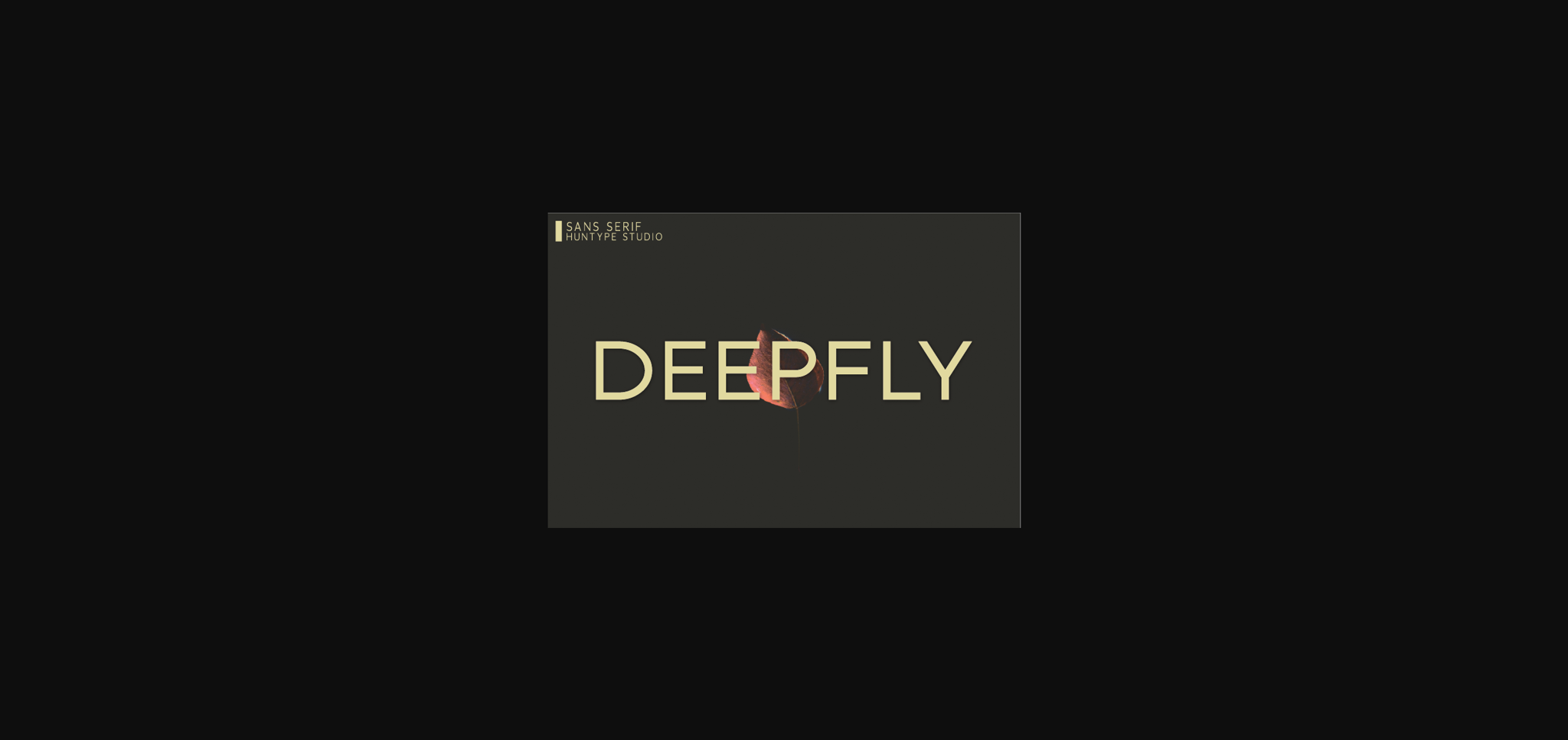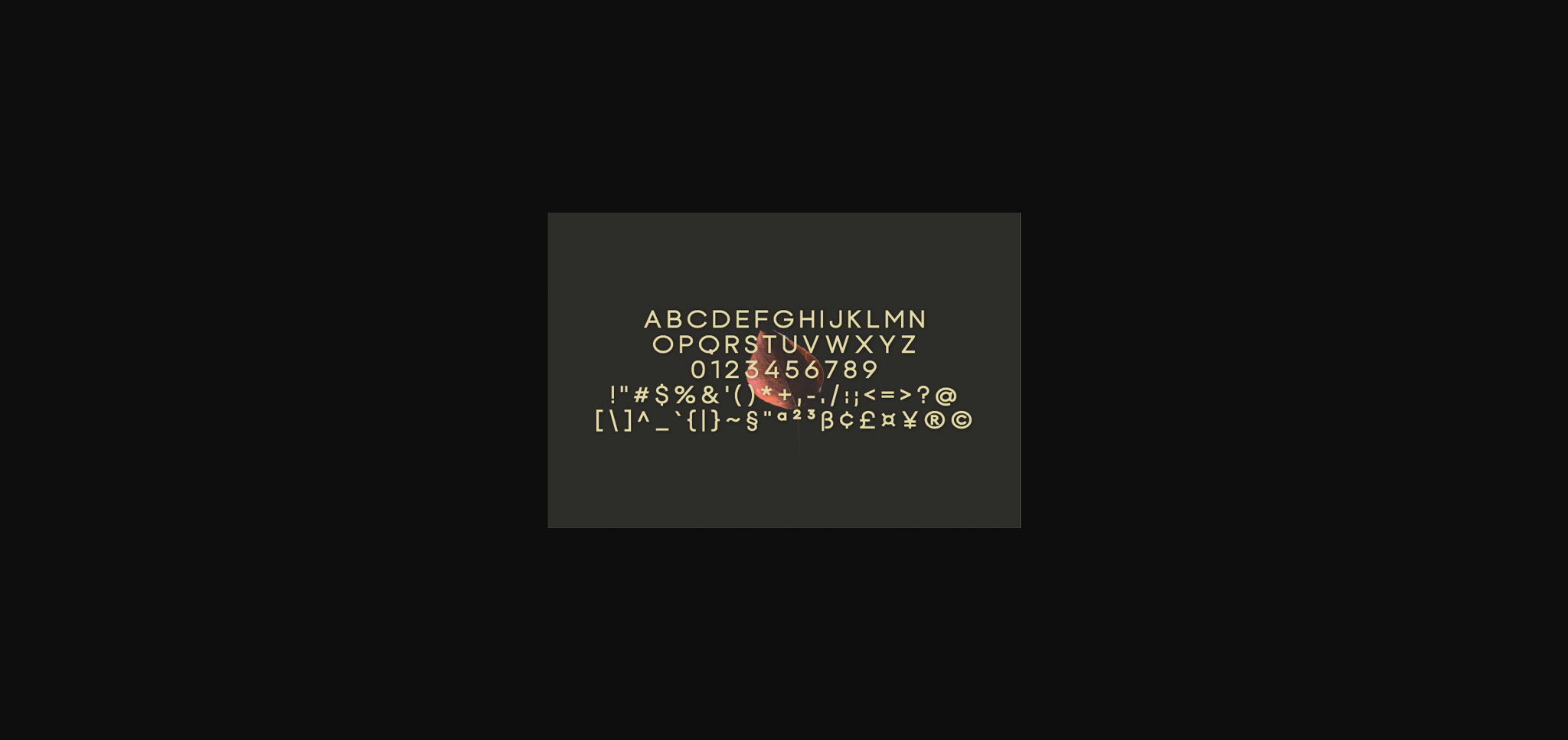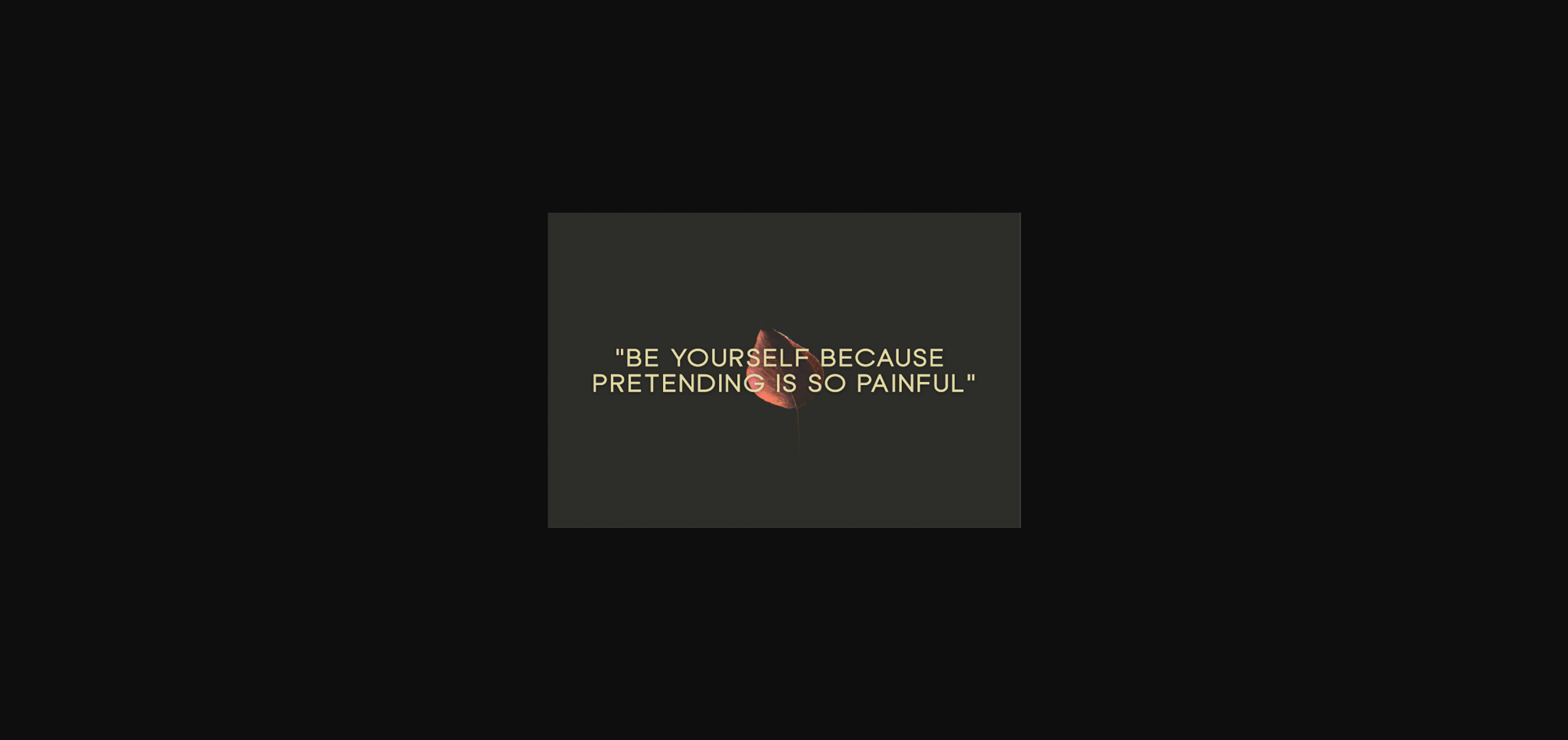
HomeSans Serif FontsDeepfly Font Sans Serif Fonts Deepfly Font FacebookXPinterestWhatsApp 1 of 5 ... Deepfly Font Poster 2... Deepfly Font Poster 3... Deepfly Font Poster 4... Deepfly Font Poster 5... About Deepfly Font Deepfly is a stylish and simple sans serif font. It has a clean, thin and smooth vibe and it will be a hit for any design that you want to add it to. DOWNLOAD NOW People also explored Catherine Berndt Font Beauty Font Business As Usual Geomax Font Bharick Font Quickly Grow Font Spanish Army Shields Font Lemon House Font Agnoses Font 300 0 TagsDeepflyDeepfly Font Previous articleExocell FontNext articleNevantik Font LEAVE A REPLY Cancel reply Comment: Please enter your comment! Name:* Please enter your name here Email:* You have entered an incorrect email address! Please enter your email address here Website: Save my name, email, and website in this browser for the next time I comment. Personal Use Free First Be Lucky Personal Use Free Read more about this font 1980 Portable Personal Use Free Read more about this font Nouradilla Script Free Version Personal Use Free Read more about this font Starborn Font Personal Use Free Read more about this font BLOG How to Install and Use Fonts on Windows, macOS, and Web Projects How to Install and Use Fonts on Windows, macOS, and Web Projects Fonts are a crucial part of design and branding. Whether you’re designing a... Free vs Paid Fonts: Why Investing in Premium Fonts Is Worth It Exploring Font Trends To increase your work productivity, choose the most readable fonts.